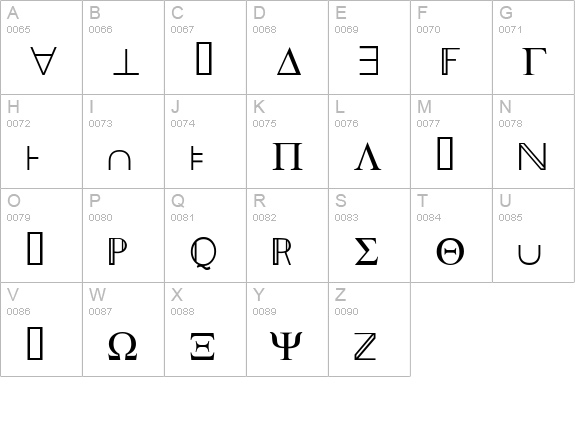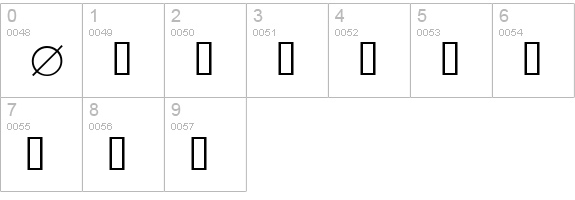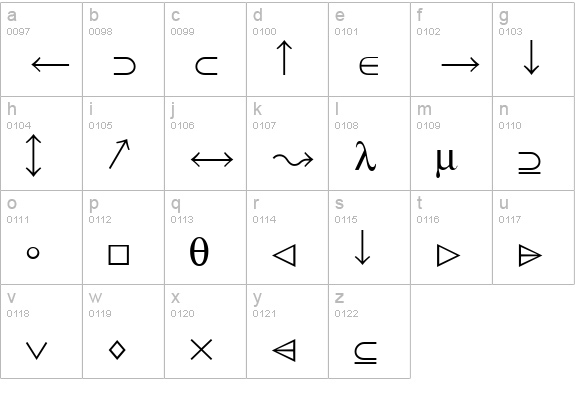
Zed Font Details
Introducing Zed Font - a modern and stylish typeface that exudes sophistication and elegance. With its clean lines and sleek design, Zed Font is perfect for a wide range of design projects, from logos to branding to marketing materials. Its versatility makes it a must-have for any designer looking to make a bold statement. The best part? Zed Font is completely free to download at FontsMarket.com. Yes, you read that right - this high-quality font can be yours at no cost at all. So why wait? Elevate your designs with Zed Font today and watch them come to life in a whole new way.